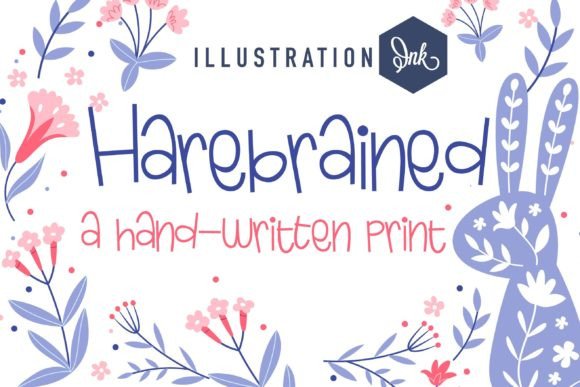
Journey into the world of Harebrained Font, a script font family that sparks creativity and captures the essence of handwritten charm. This captivating font, brainchild of Illustration Ink, is meticulously crafted with youthful lettering and a touch of whimsy, making it the perfect choice for print designs seeking a unique and personal touch.
Immerse yourself in the delightful world of Harebrained Font, where each glyph dances across your screen with an infectious energy. Its carefully designed characters exude a sense of playfulness and spontaneity, reminiscent of childhood scribbles brought to life. Unleash your artistic flair and let your imagination run wild as you create designs that resonate with authenticity and warmth.
With its graceful curves and playful strokes, Harebrained Font adds a touch of elegance to any project. Its versatile nature makes it suitable for a wide range of applications, from invitations and greeting cards to posters and social media graphics. Whether you're a seasoned designer or just starting your creative journey, this font will elevate your work to new heights.
We understand that choosing the right font can be a daunting task. That's why we've included a bold version of Harebrained Font, giving you even more options to explore. Experiment with different combinations and styles to create designs that stand out and leave a lasting impression.